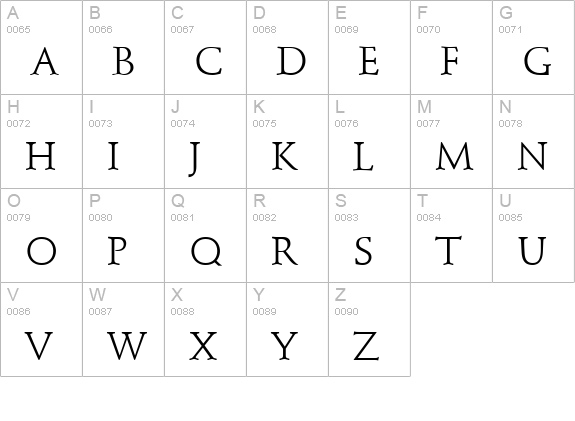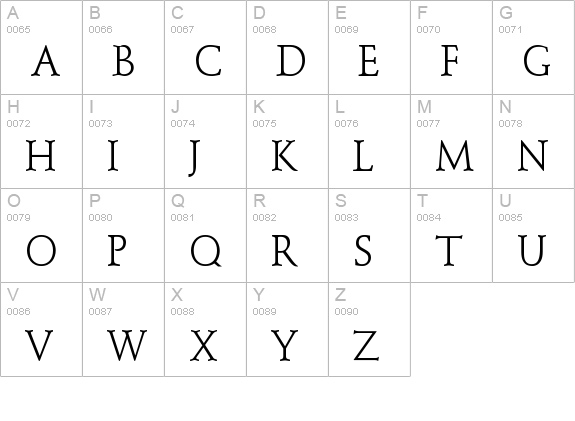
Deutch SSi font is a modern and stylish typeface that exudes sophistication and elegance. Its clean lines and sleek design make it perfect for a wide range of design projects, from branding to editorial design. The font features a unique blend of sharp edges and smooth curves, giving it a distinct and eye-catching look. What sets Deutch SSi font apart is that it is available for free download at FontsMarket.com. This means that you can easily access this high-quality font without any cost, making it a valuable addition to your font collection. Whether you're a designer looking to elevate your projects or a business owner seeking a fresh look for your branding, Deutch SSi font is a versatile and reliable choice. Download it today and start creating stunning designs with ease.